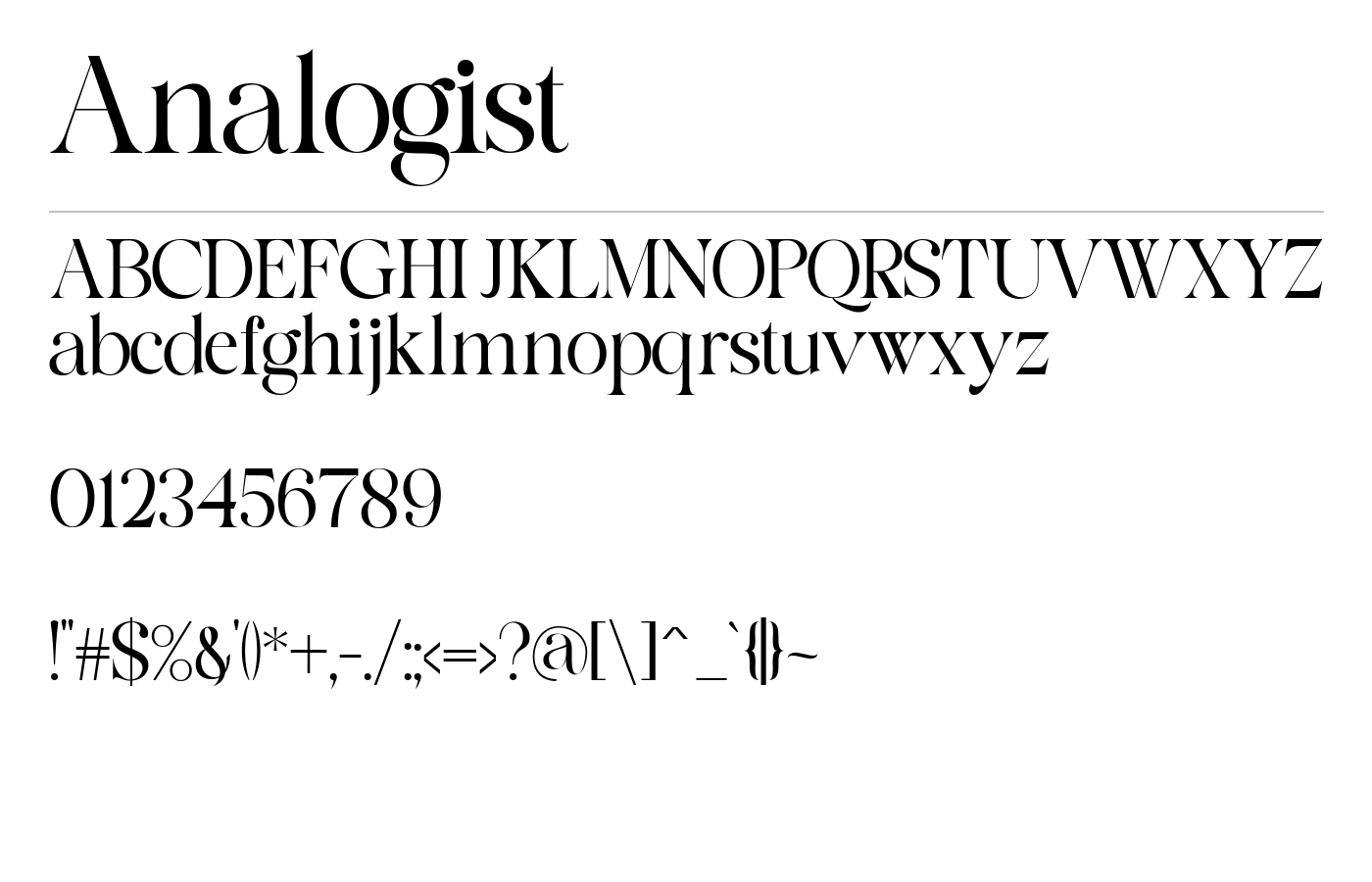
Analogist is an elegant serif font with a refined, high-contrast design that blends modern sophistication with classic style. Its sharp, thin serifs and tall x-height create a graceful and stylish appearance, making it ideal for luxury branding, editorial headlines, and fashion-focused projects that require a touch of timeless class. This font works especially well in upscale contexts where a sleek and polished aesthetic is desired.
Analogist Font
About Analogist Font